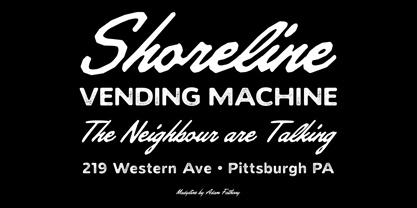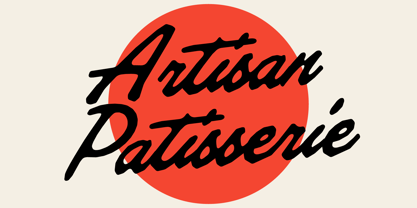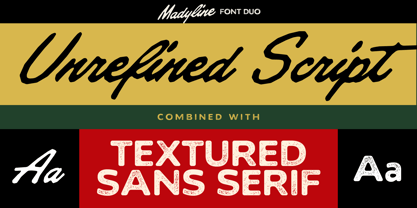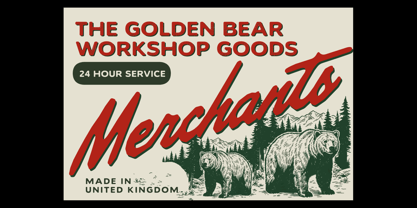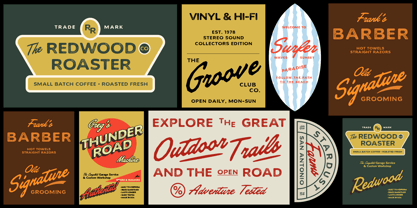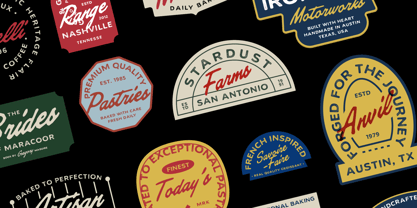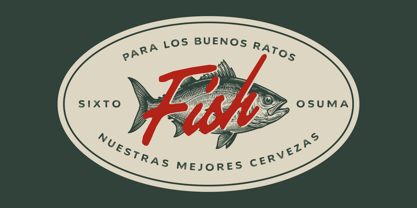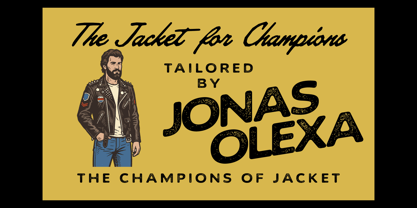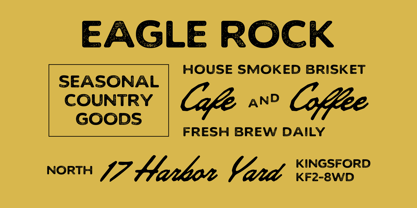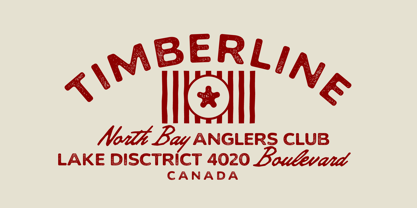
Madyline
por Adam Fathony
La familia tipográfica Madyline fue diseñada por Adam Fathoni Haris y publicada por Adam Fathony. Madyline contiene 2 estilos y opciones de paquete familiar. Más información sobre esta familia
Meet Madyline Font Duo, a versatile pairing that brings together the charm of an expressive handwritten script with the clean confidence of a textured sans serif. Designed to complement each other effortlessly, this duo makes it easy to create bold branding, vintage-inspired packaging, café menus, apparel graphics, logos, posters, labels, and social media designs.
The script features smooth, flowing strokes with an unrefined hand-drawn feel that adds warmth and personality without losing readability. It feels natural, energetic, and full of character. Paired with the textured sans serif, you get the perfect balance of handcrafted style and solid structure, making headlines, subheadings, and supporting text work beautifully together.
Whether you’re creating a rustic outdoor brand, an artisan bakery identity, coffee packaging, whiskey labels, or retro-inspired merchandise, Madyline gives your designs an authentic handcrafted look that feels timeless rather than trendy.